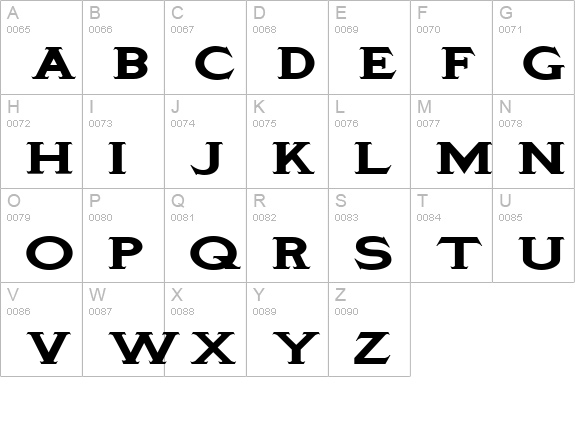
TinplateTitlingBlackWide Font Details
TinplateTitlingBlackWide is a bold and striking font that commands attention with its clean lines and wide letterforms. This font is perfect for making a bold statement in your designs, whether it be for headlines, logos, or any other creative project. With its strong and sturdy appearance, TinplateTitlingBlackWide exudes a sense of confidence and power. Its thick strokes and generous spacing ensure that every character stands out, making it ideal for any design that requires a bold and eye-catching typography. What makes TinplateTitlingBlackWide even more appealing is that it is available for free. That's right, you can freely download this amazing font from FontsMarket.com. This means that you can elevate your designs without any additional cost, allowing you to create stunning visuals without breaking the bank. Whether you are a professional designer or a creative enthusiast, TinplateTitlingBlackWide is a must-have font in your collection. Its versatility and boldness make it suitable for a wide range of design projects, from branding to advertisements and everything in between. So why wait? Download TinplateTitlingBlackWide for free at FontsMarket.com and unleash your creativity with this powerful and captivating font.